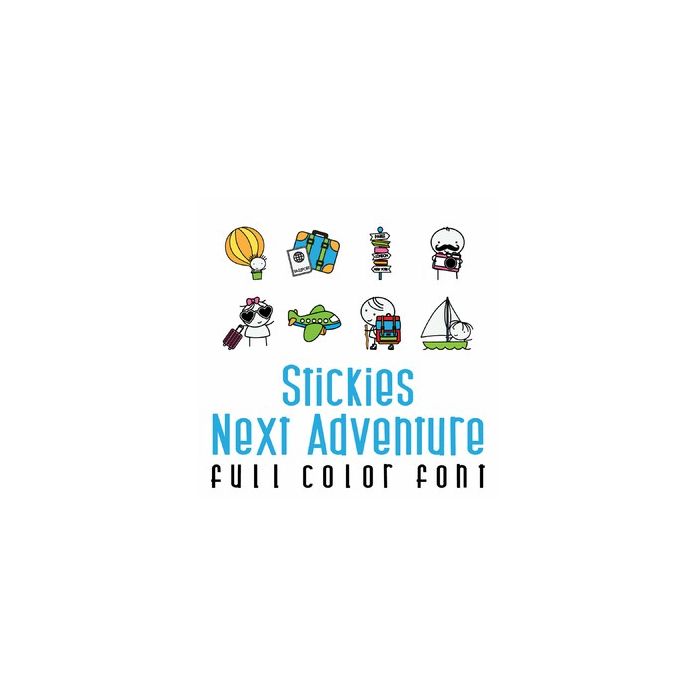
This adorable full color doodlebat font features 26 of our Stickies figures ready for their next adventure. Travel images that are perfect for cards, crafts, gifts, decor, scrap book pages, planner stickers and more!